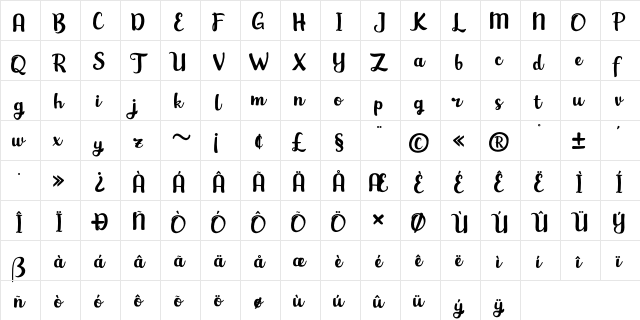
Hansley Regular
| Foundry | Bearydsgn |
| Designer | Dianhaniff |
Design Context for Hansley Typeface
Hansley is a composed and adaptable typeface that performs quietly and consistently across a wide range of design contexts.